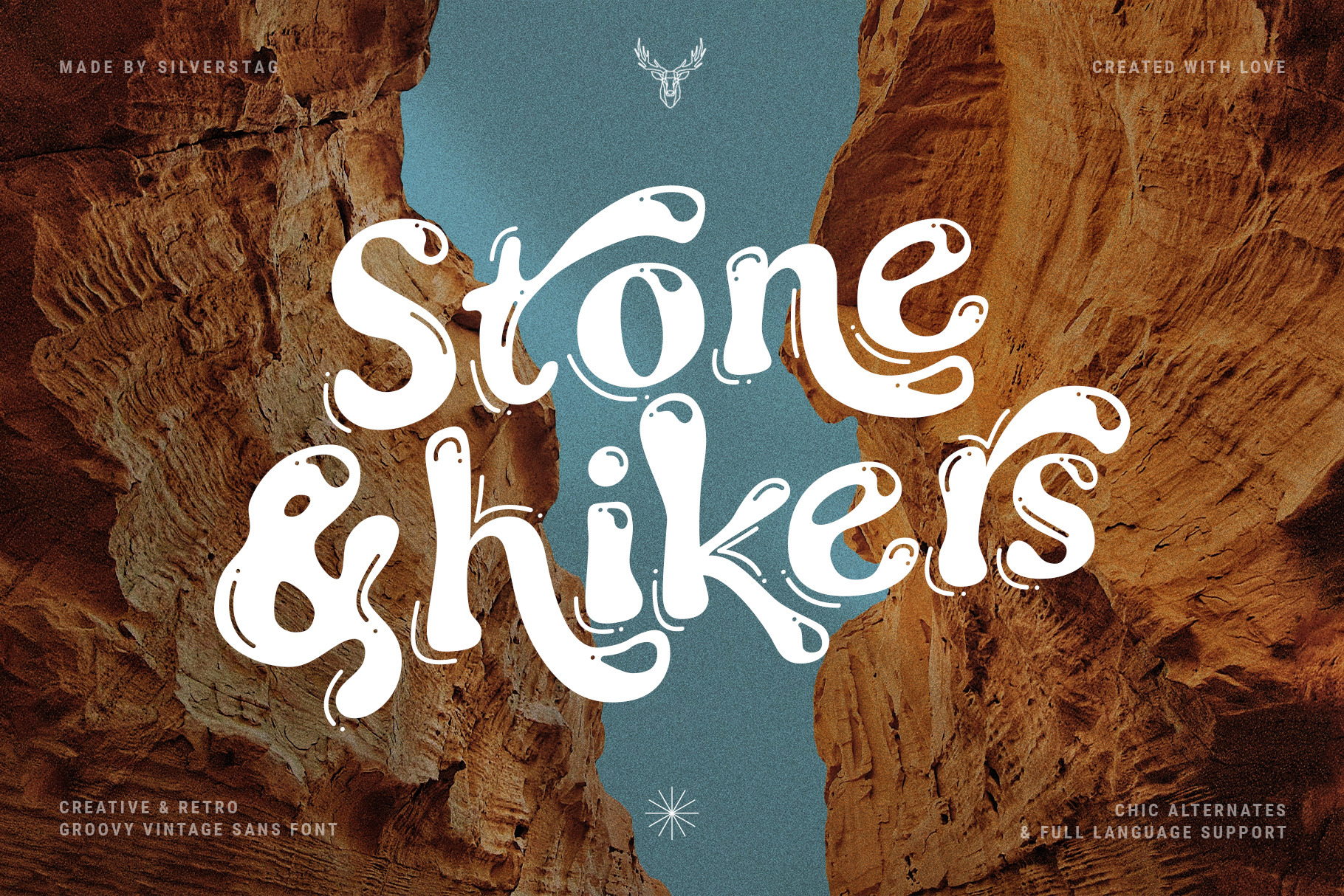
Stone & hikers is my brand new groovy typeface. It's playful, 100% hand-drawn & unique with it's alternates, playful lines, dots & cutouts. It's perfect for any kind of graphic work for the upcoming summer months & I am really looking forward to see what you'll all create with it. Check out the photos I have prepared for you to see what you can do with it and happy creating!
It also includes full language support, punctuation, numerals and detailed instructions how to use alternate letters most of the apps on your computer, as well as in Canva.
I invite you to check out the preview images, and I hope you will be immersed in my vision for this creative typeface that, I am sure, will work for all kinds of interesting projects you might be working on this year.
Stone & hikers - Groovy Retro Font:
- 10+ Alternates
- Language Support